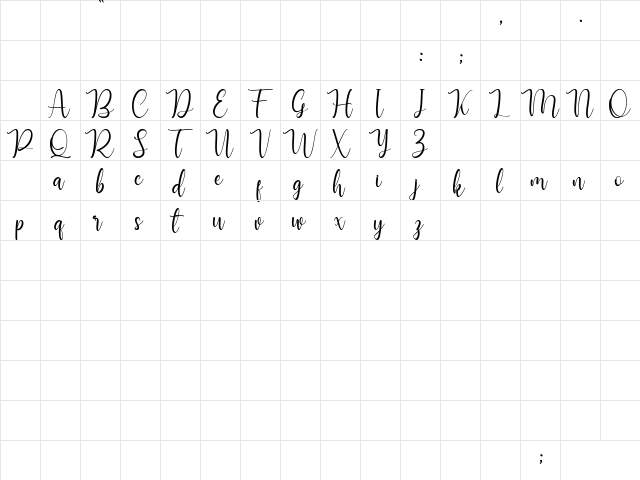
Manthine Personal Use Only is a composed and adaptable typeface that performs quietly and consistently across a wide range of design contexts. Its slender proportions lend an understated elegance to any composition.